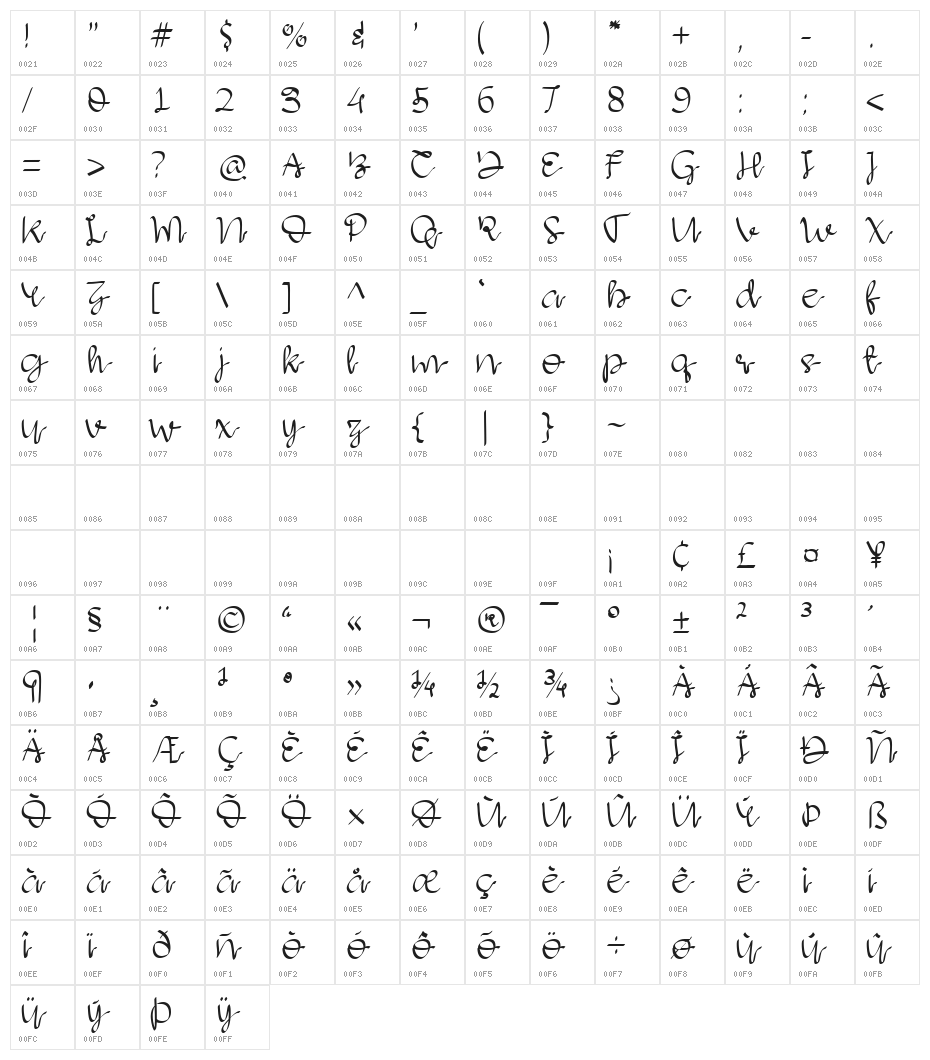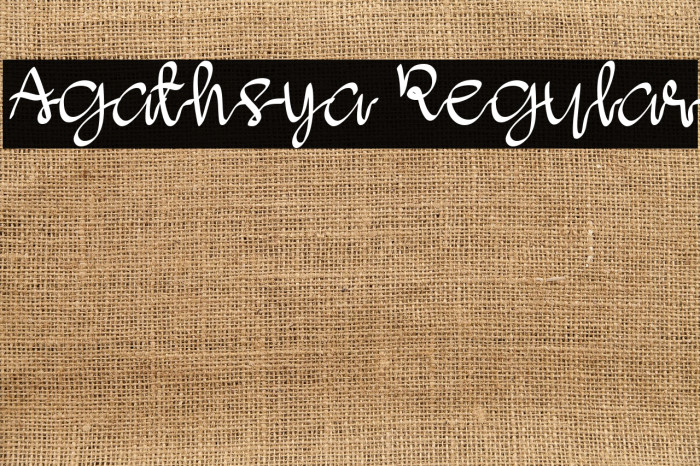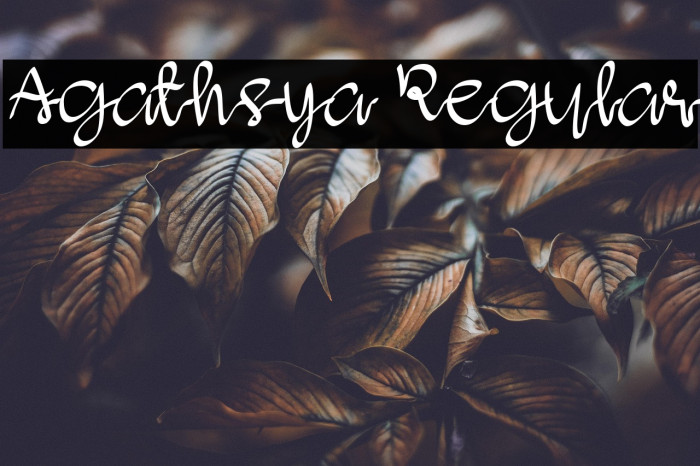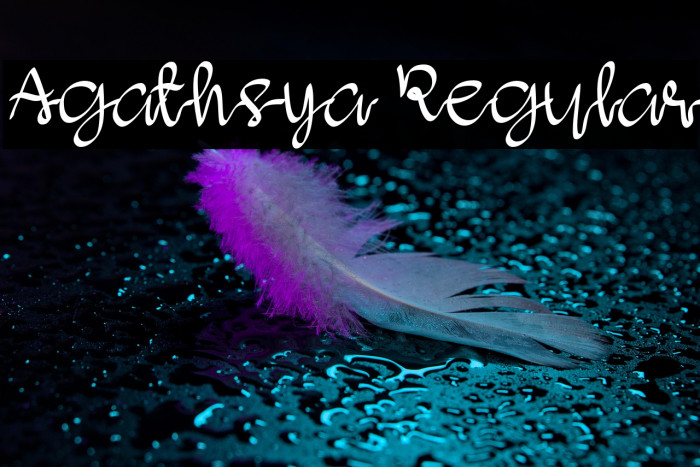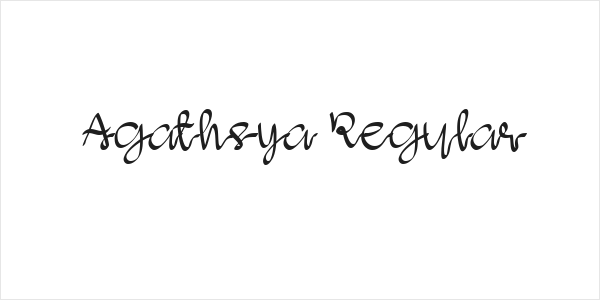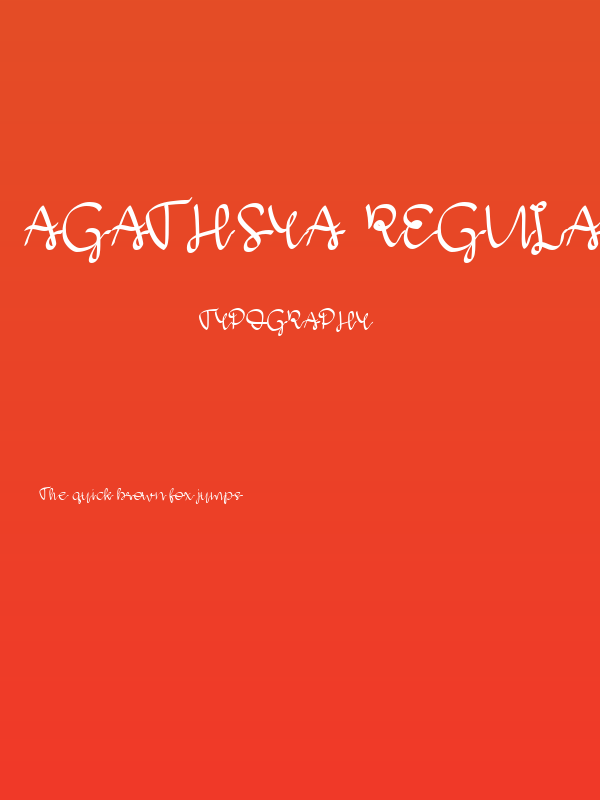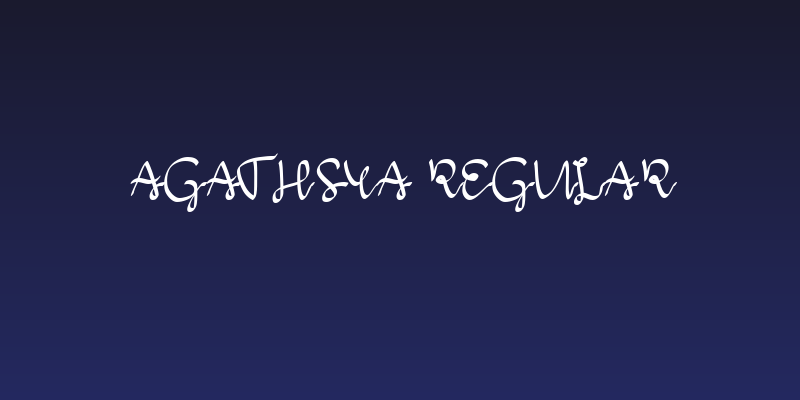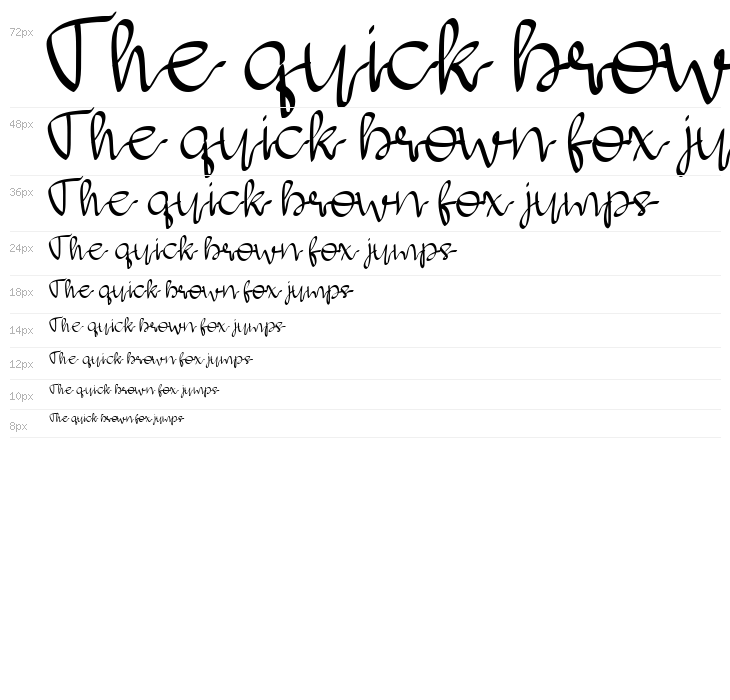
Agathsya Regular Font
Agathsya Regular Description
This font features a dynamic and fluid script style, characterized by its elegant, flowing lines and a handwritten appearance. The letters are connected in a cursive manner, giving it a natural and organic feel. The uppercase letters are bold and expressive, while the lowercase letters maintain a consistent flow, enhancing readability. The numerals and special characters are designed to match the overall aesthetic, with a playful yet sophisticated touch. This font is ideal for projects that require a personal and artistic touch, such as invitations, greeting cards, or branding materials.
| Proposed Projects | Ideal for invitations, greeting cards, branding materials, and artistic projects. |